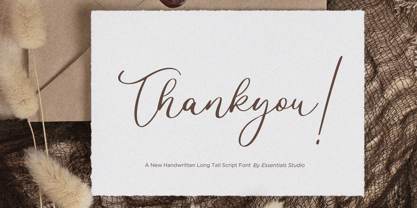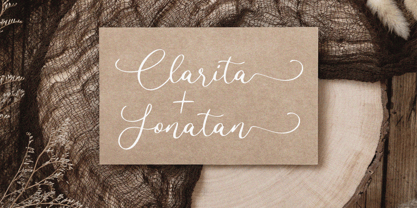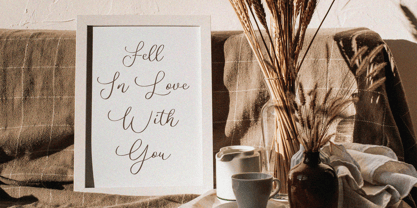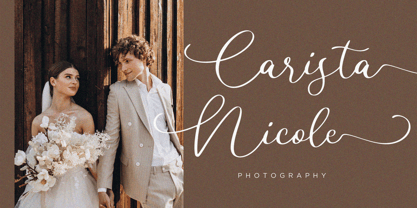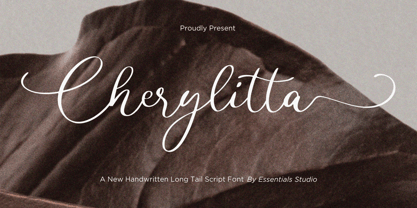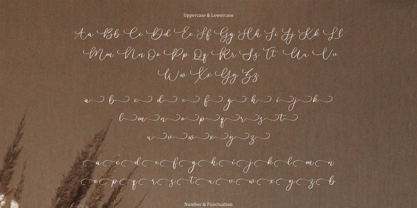
Cherylitta
by Essentials Studio
The Cherylitta Font Family was designed by Sulthan Mada Maulana Tsani and published by Essentials Studio. Cherylitta contains 1 styles.
Introducing Cherylitta: a refreshing blend of contemporary style and elongated elegance, meticulously crafted into a captivating script font. Striking the perfect balance between style and versatility, this font adds a touch of sophistication to any branding project, magazine layouts, social media graphics, or wedding invitations. Its seamless adaptability makes it ideal to make words pop against diverse backgrounds, setting the tone for an immersive visual experience. Exude a modern charm with Cherylitta, the epitome of typographic elegance.
Designers: Sulthan Mada Maulana Tsani
Publisher: Essentials Studio
Foundry: Essentials Studio
Design Owner: Essentials Studio